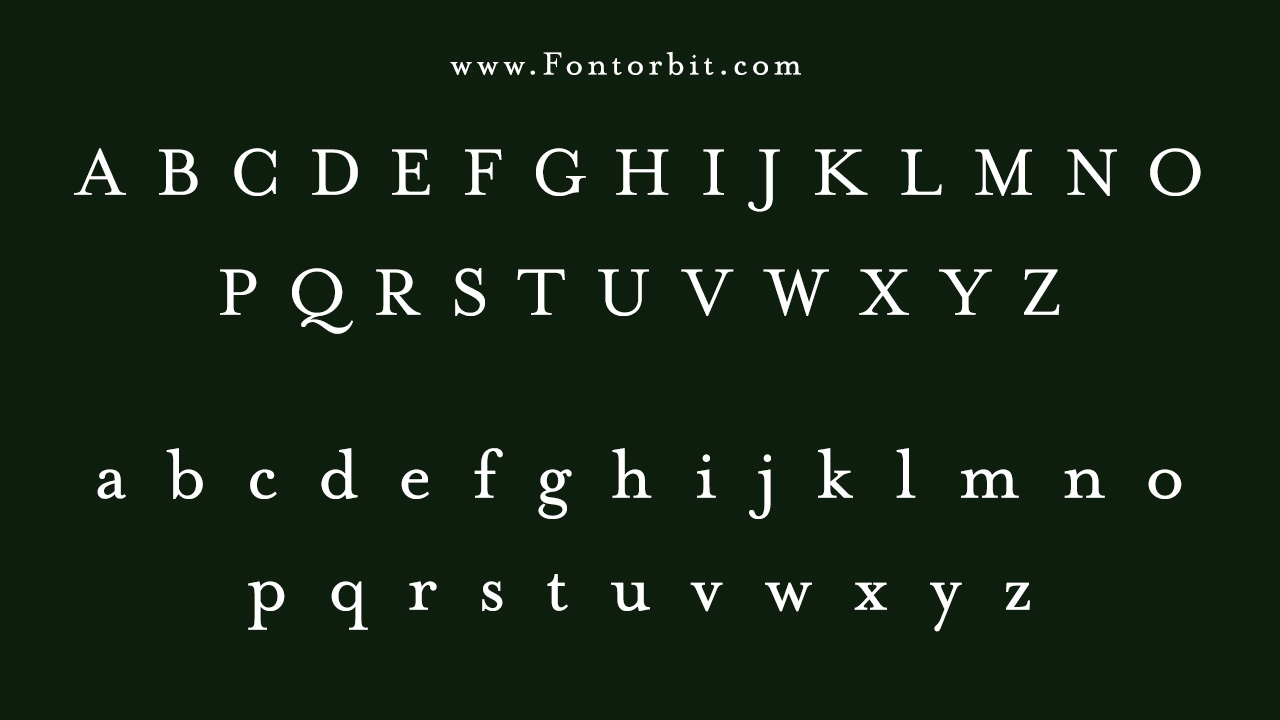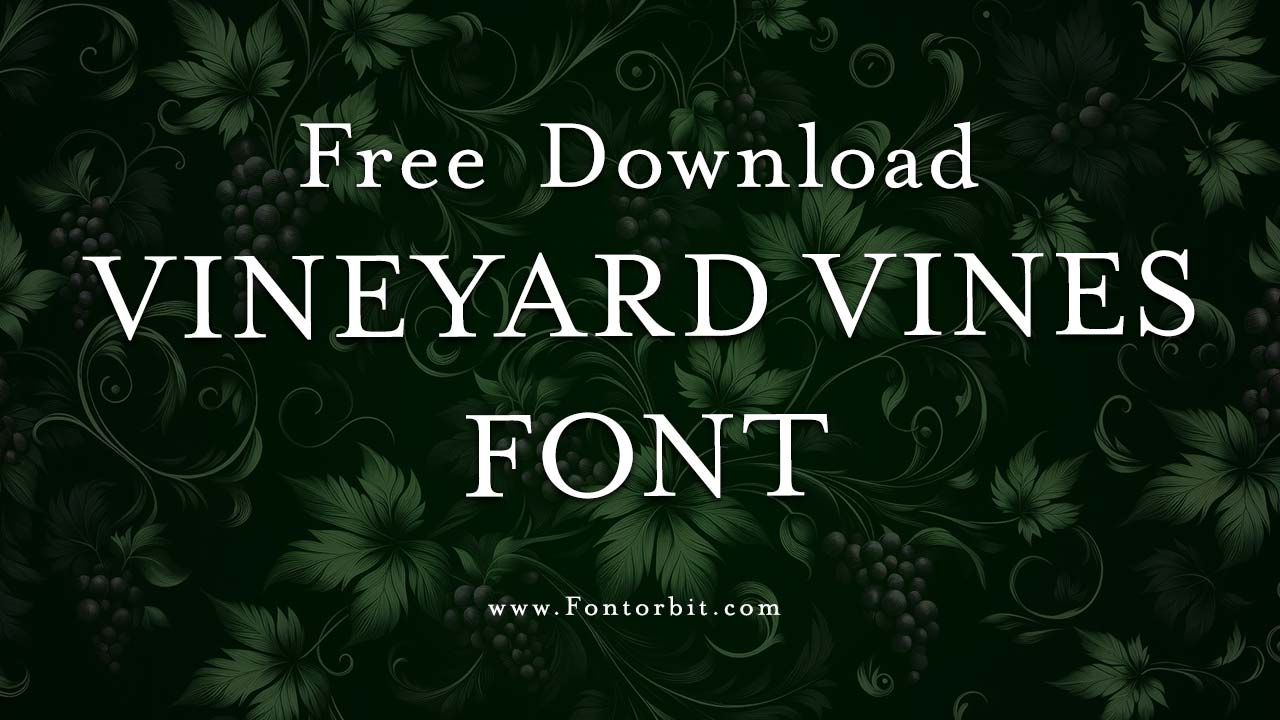
Vineyard Vines, an American apparel retailer founded in 1998 by brothers Shep and Ian Murray, uses Mrs Eaves Roman in its logo.
This transitional serif typeface, designed by Zuzana Licko in 1996, was released by Emigre, the type foundry co-founded by Licko and her husband, Rudy VanderLans. The font boasts 1,000 units per em, 1,159 unique glyphs, and 98 characters. It is available in both OTF and TTF formats, making it suitable for various digital and print applications.
Vineyard Vines Family Includes
The Vineyard Vines font family includes a range of styles that enhance its versatility. Here is the font family list:
- Vineyard-Vines Regular
- Vineyard Vines Bold
- Vineyard Vines Light Bold
Notable Uses Of Vineyard Vines Font
Vineyard Vines suits various uses, including fashion and lifestyle brand materials, social media graphics, informal corporate documents, casual event stationery, and retail packaging. Its versatility makes it ideal for digital and print applications needing a modern, approachable look. Its clean and stylish design is ideal for:
- Apparel and accessory branding
- Casual event invitations
- Website headers and banners
- Marketing materials for lifestyle brands
Vineyard Vines stands out for its modern, clean design and versatile use. Its wide range of styles makes it a valuable asset for branding and promotional materials, providing a stylish and approachable appearance. Whether for digital or print use, Vineyard Vines offers a contemporary touch to any project.
1.What Is Vineyard Vines Font Used For?
Vineyard Vines is used for branding, casual event invitations, and marketing materials.
2.Who Designed The Vineyard Vines Font?
The Vineyard Vines design team created the font.
6.What Styles Are Included In The Vineyard Vines Font Family?
The font family includes Regular, Bold, Italic, and Bold Italic.
7.Is Vineyard Vines Suitable For Web Design?
Yes, it is suitable for web design and digital applications.
9.Does Vineyard Vines Support Multiple Languages?
It primarily supports Latin scripts.